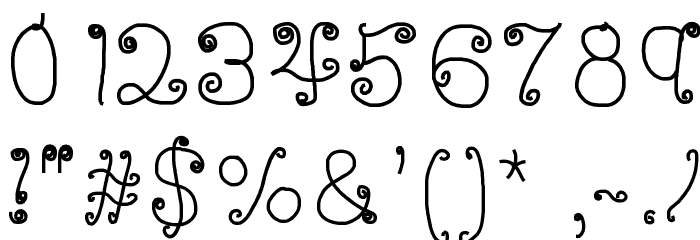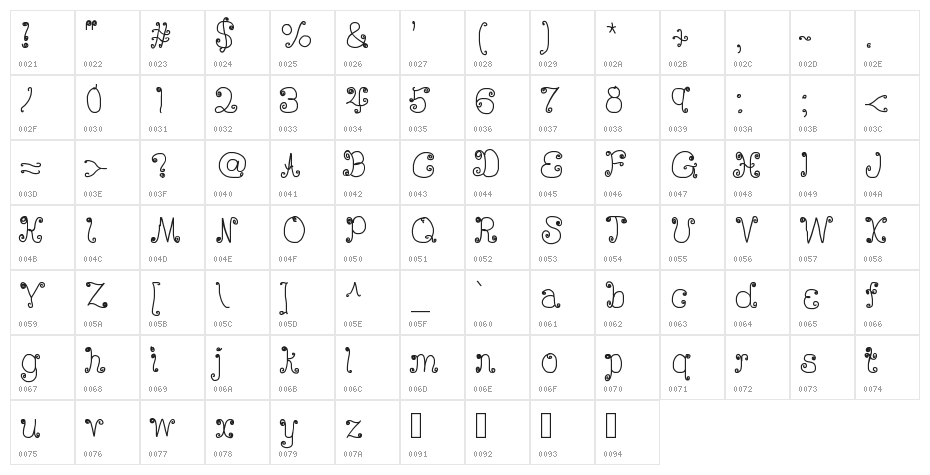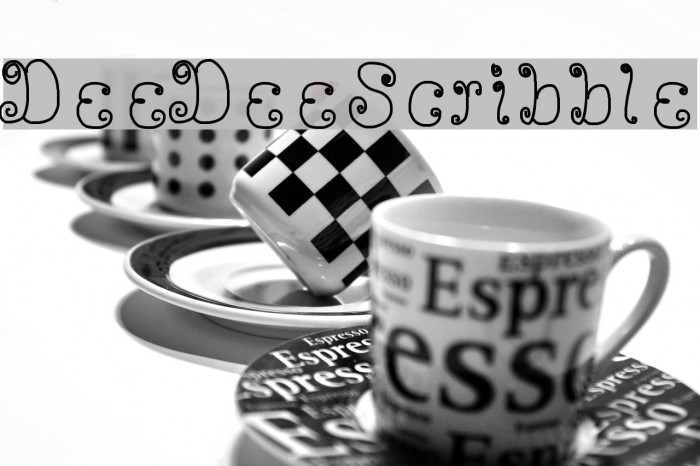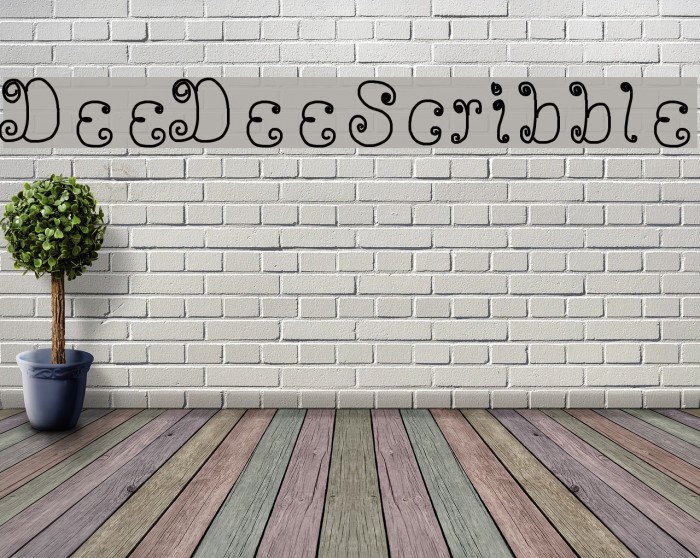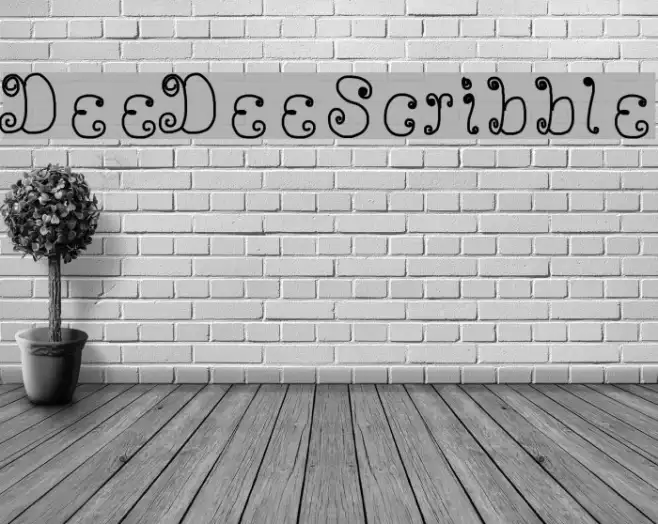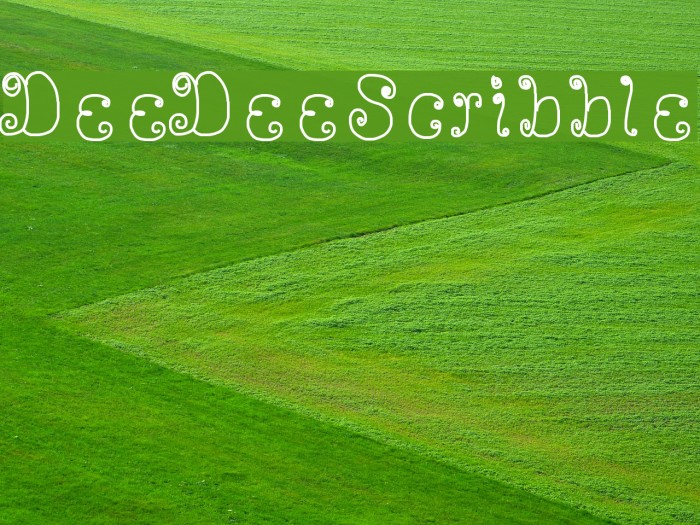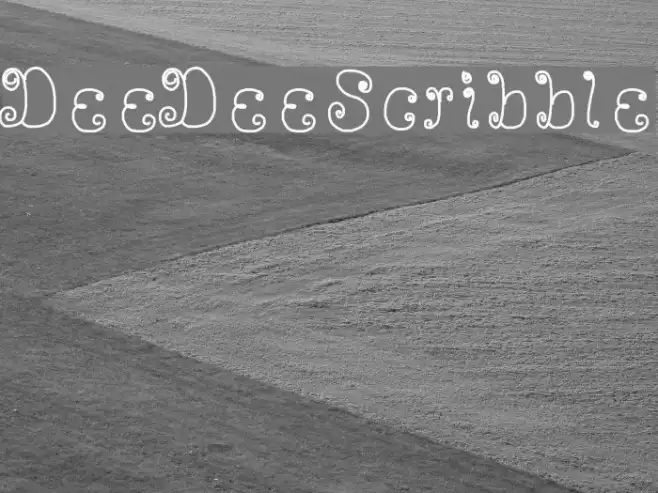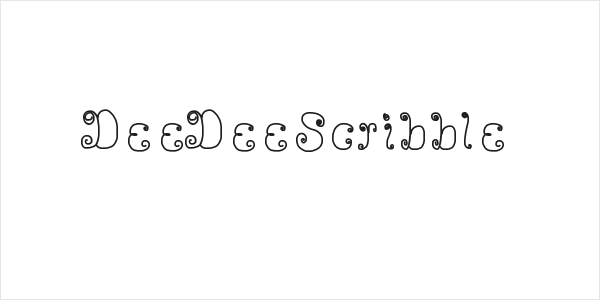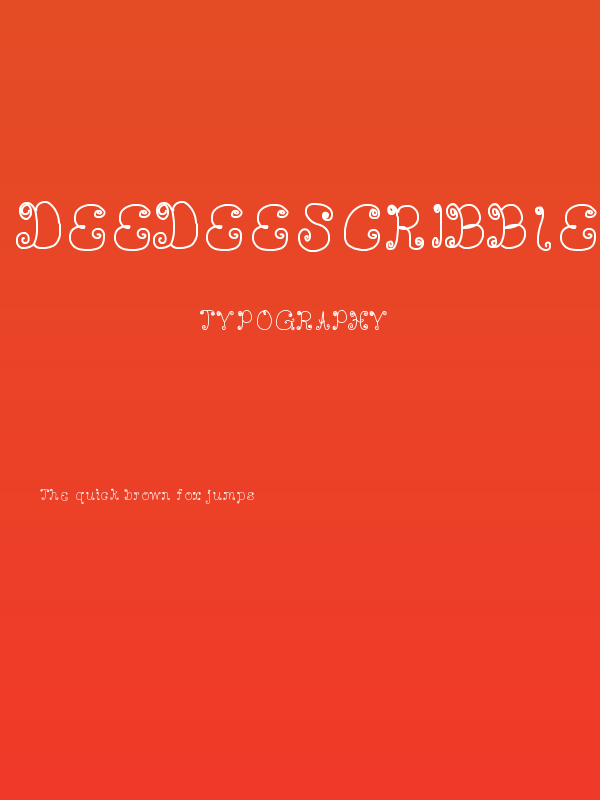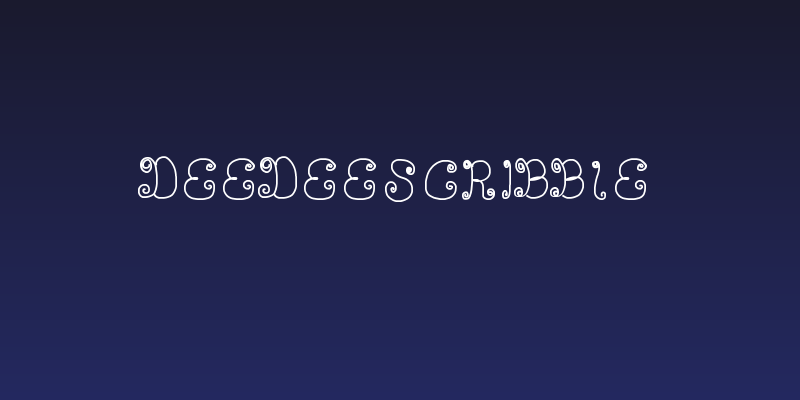
DeeDeeScribble Font
DeeDeeScribble Description
This whimsical and playful font features a unique design with curly, decorative elements on each character. The letters are characterized by their swirling, ornate details, giving them a lively and fun appearance. The uppercase and lowercase letters maintain a consistent style, with each character adorned with loops and curls that add a touch of elegance and creativity. The numbers and special characters follow the same decorative theme, ensuring a cohesive look throughout. This font's distinct style makes it stand out, perfect for projects that require a touch of whimsy and charm.
| Proposed Projects | Ideal for children's books, greeting cards, playful branding, and creative invitations. |